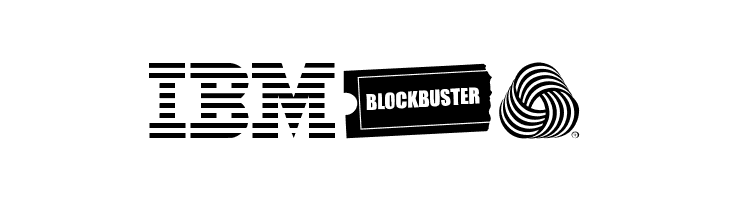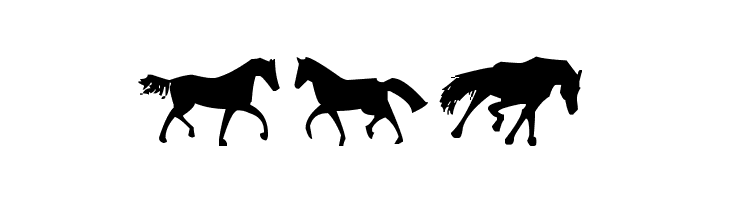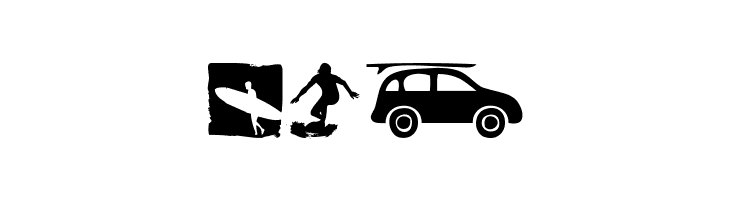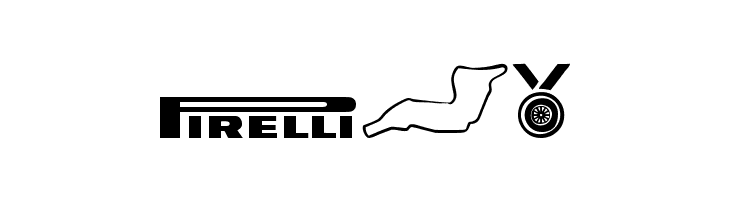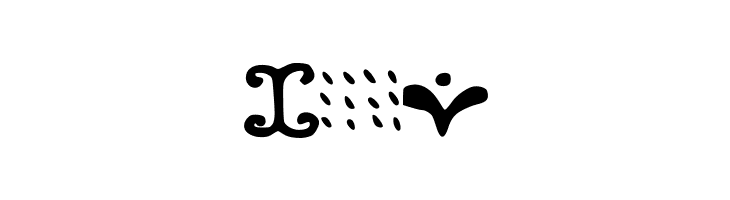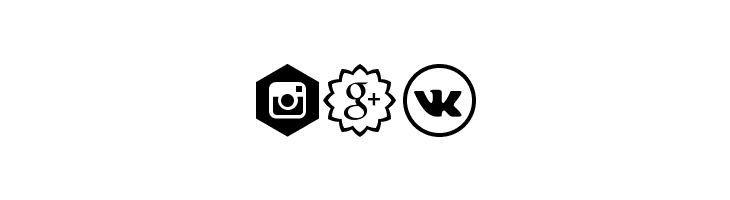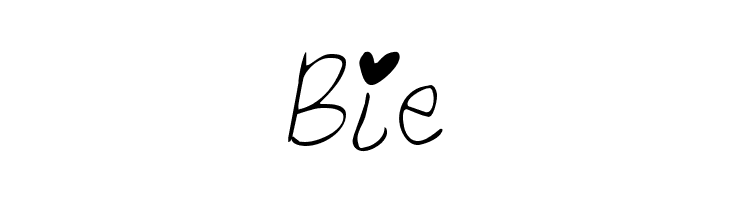
A collection of diverse, custom-designed brand logos with varied typographic styles.
Silhouette pictogram font featuring horses and equestrian scenes.
Surfing-themed pictogram display font with bold silhouettes.
Motorsport-themed dingbat font with Formula 1 icons and symbols.
A playful and whimsical collection of doodle-like symbols with bold, decorative designs.
Bold, geometric social media icon set in black and white.
A playful, handwritten font with whimsical elements and decorative characters.
A modern, ultra-thin, and elongated font with a sleek and elegant style.
A decorative font with Irish-themed illustrations replacing characters.